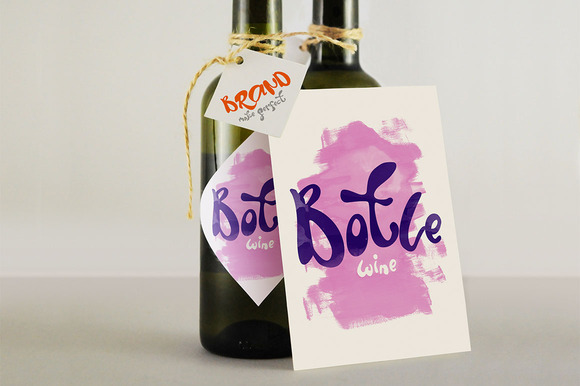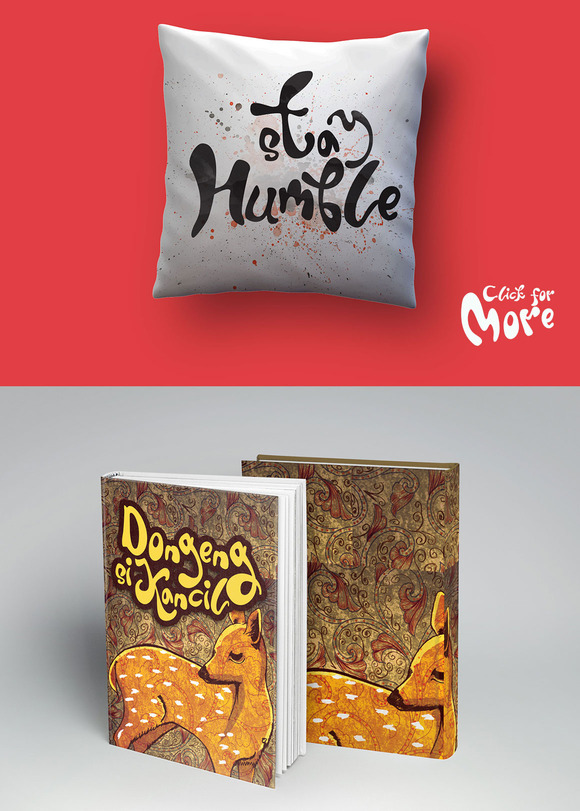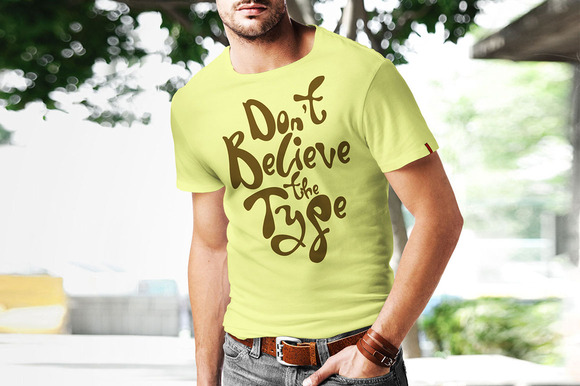
Twice Display Typeface
Introducing Twice inspired by bubble and some combinations handwritten letters. wild hand and imperfect flow give the natural looks.
The Features of this fonts is:
• Character Alternative
• Ligatures
• International glyphs
Free feel explore your imaginations. Can be used for various purposes. such as headings, signature, logos, Event, t-shirt, quote, letterhead, signage, posters, badges etc.